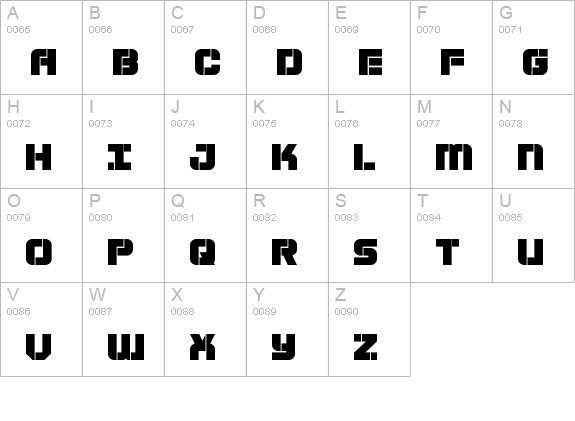
Super Submarine Font Details
Super Submarine is a donationware font in the Modern > Stencil category, designed by Iconian. It has been downloaded 212 times and is available for Windows, Mac and Linux.
Introducing the captivating Super Submarine font, a versatile and modern typeface that will sail you through your design projects with effortless style and charm. This font features sleek lines and a unique submarine-inspired design that sets it apart from the rest. With its bold presence and smooth curves, Super Submarine is perfect for adding a touch of sophistication to your branding, logos, posters, and more.